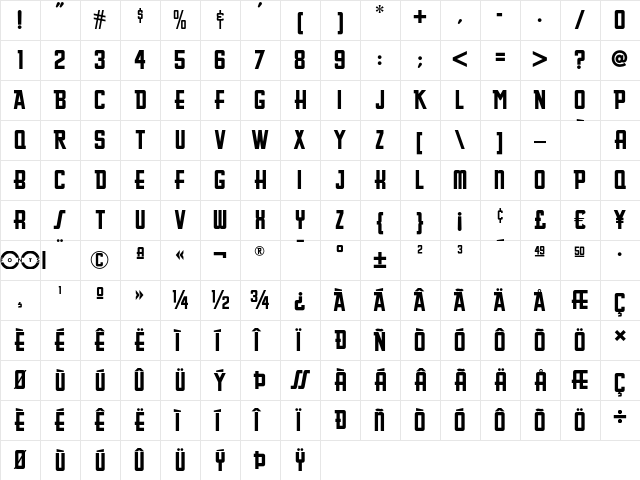
Greasy Spoon NF Regular
Design Context for Greasy Spoon NF Typeface
Greasy Spoon NF is a composed and adaptable typeface that performs quietly and consistently across a wide range of design contexts.
Pro Tip: Use Greasy Spoon NF in both headline and body roles to test its range before committing to a single application.